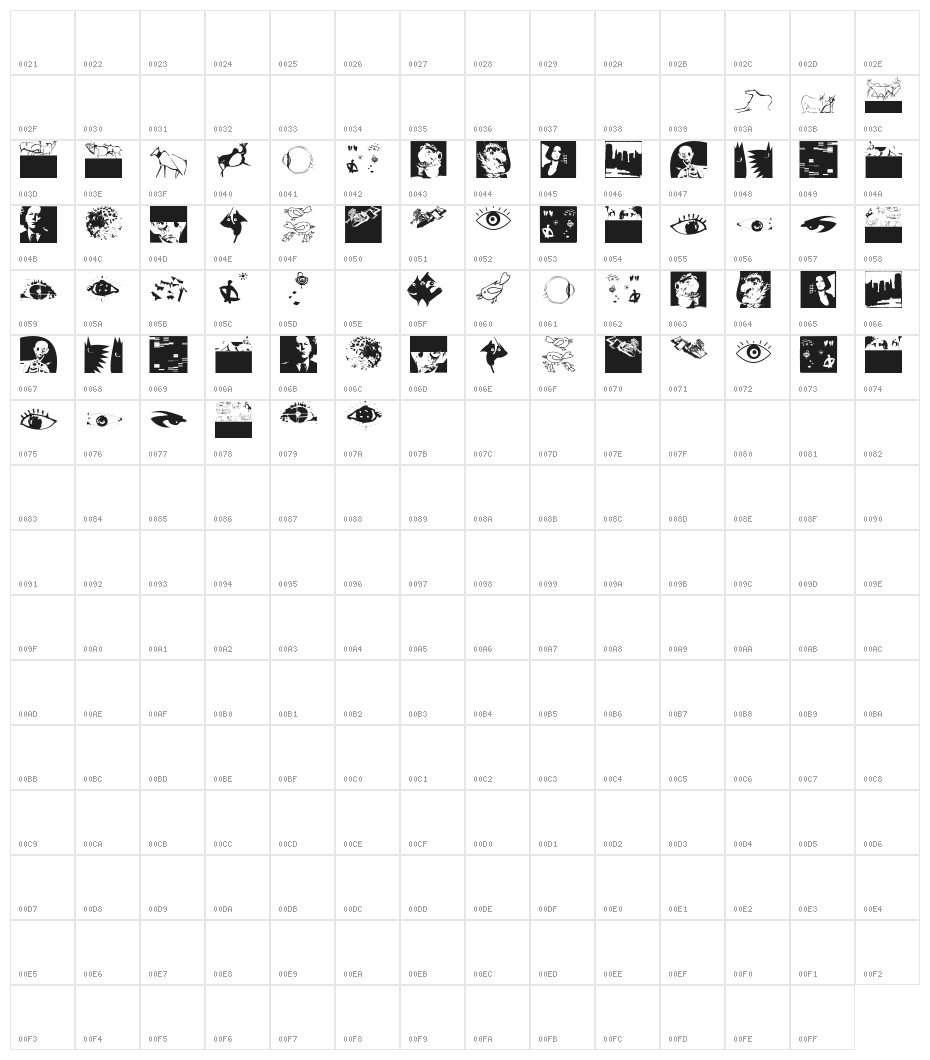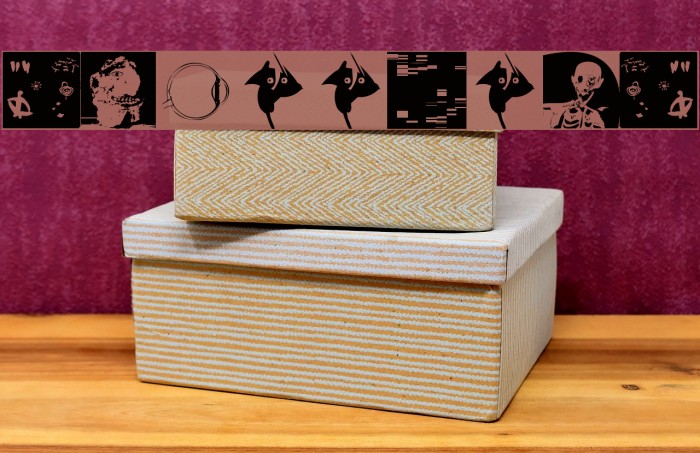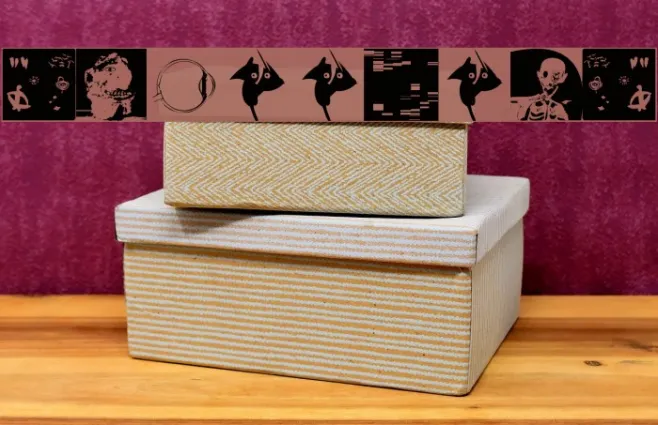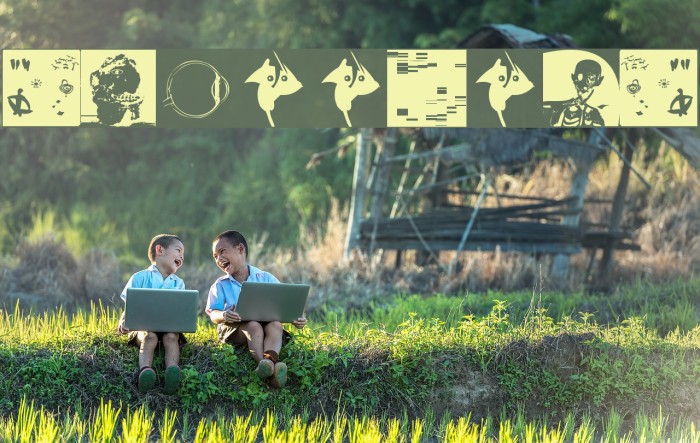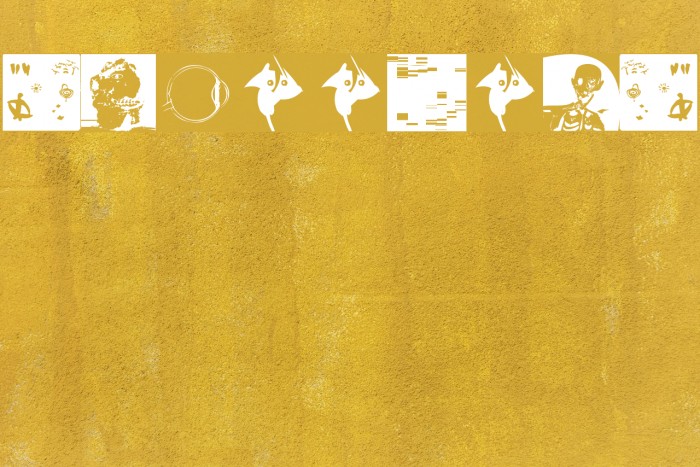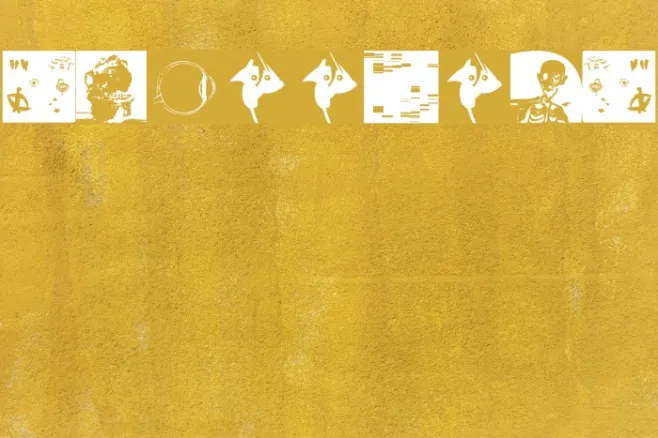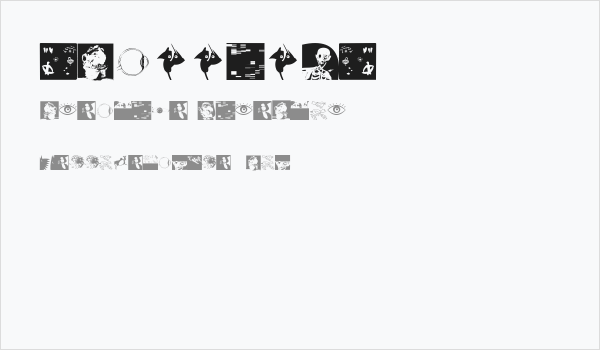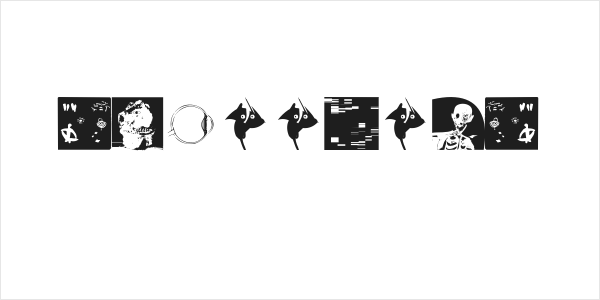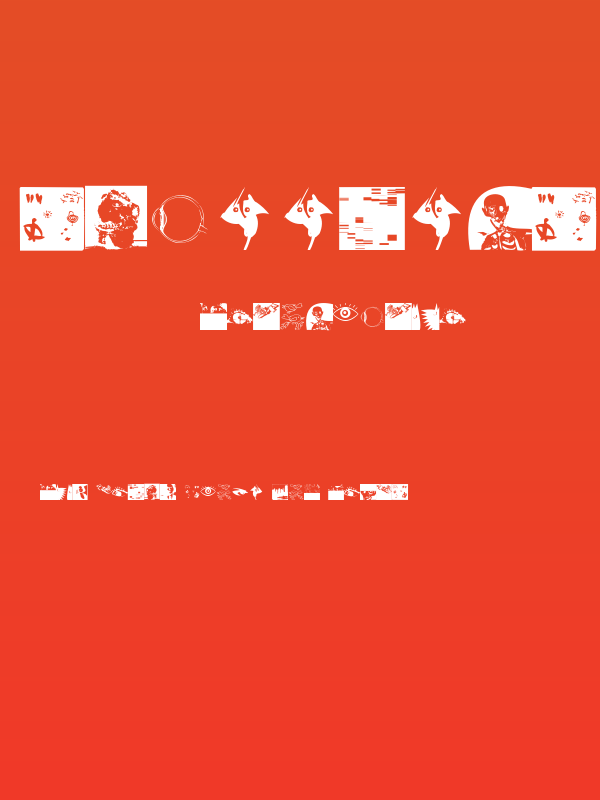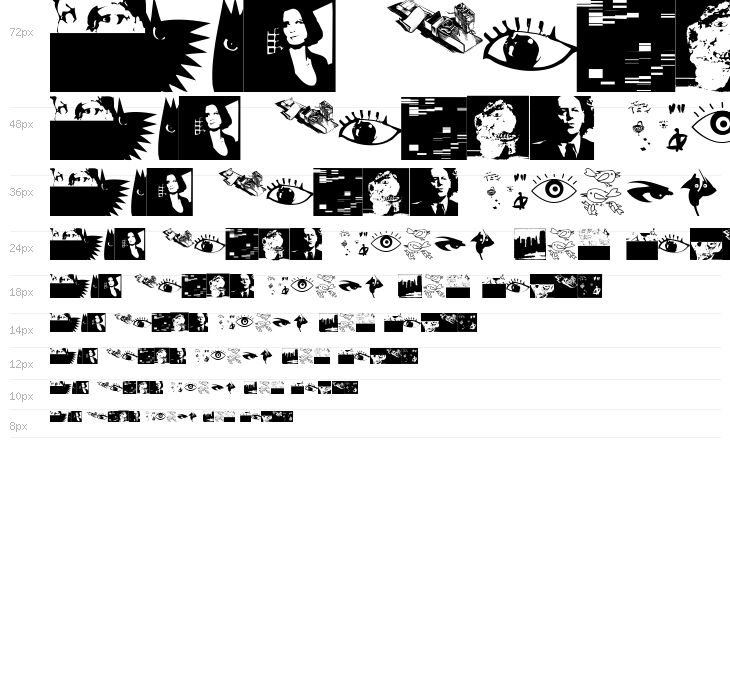
Scannings Font
Scannings Description
A highly decorative and illustrative font composed entirely of unique, detailed black-and-white graphic icons and scenes instead of traditional letterforms. Each character is represented by a distinct image, including faces, eyes, cityscapes, animals, and abstract shapes, giving it a collage-like, surreal appearance.
| Overall Style | Decorative, Surreal, Artistic |
| Use Case | Logos, Posters, Artistic projects, Visual storytelling |
| Proposed Projects | Album covers, poster art, zines, experimental graphic design, alternative comics, visual poetry. |